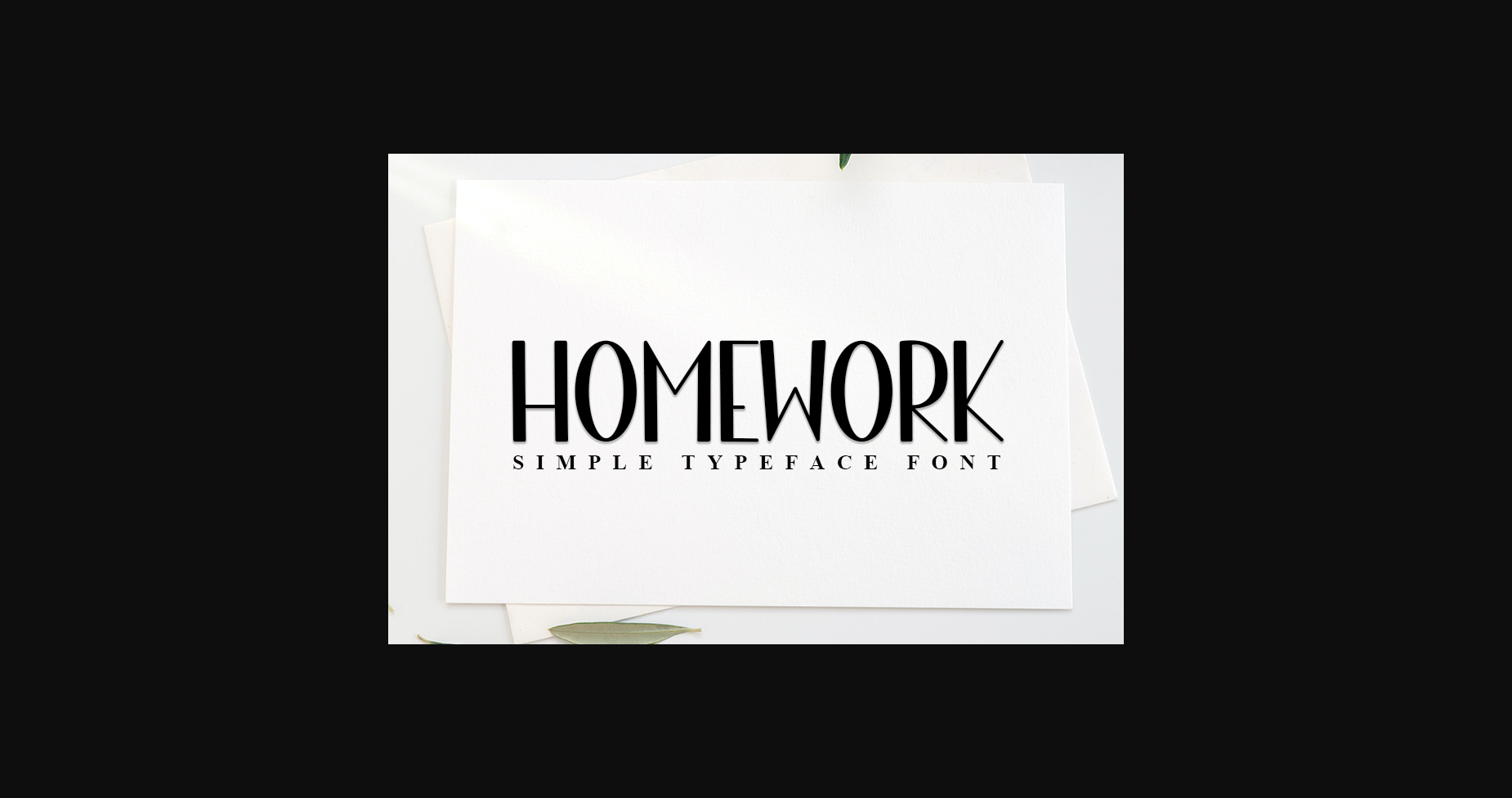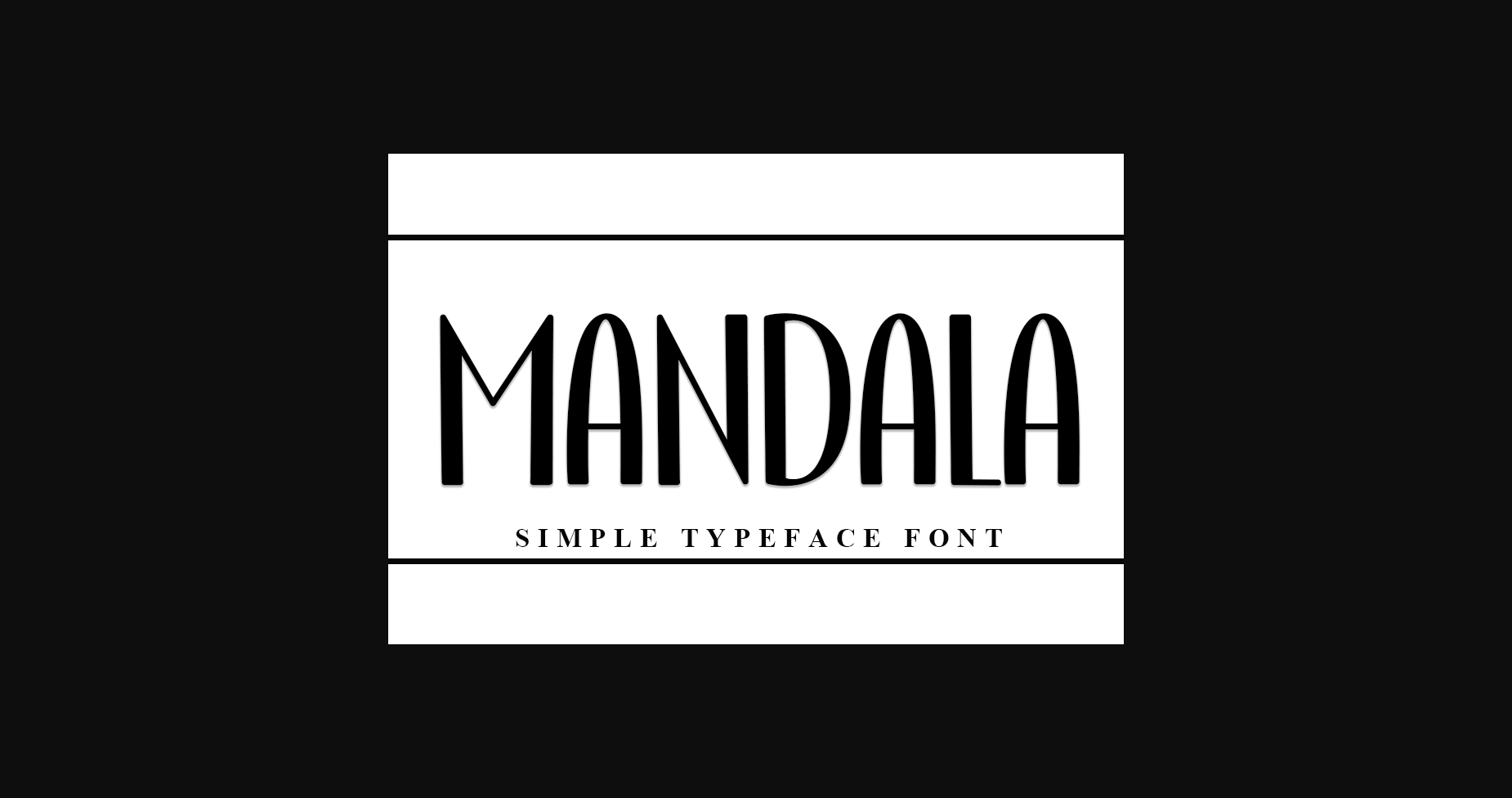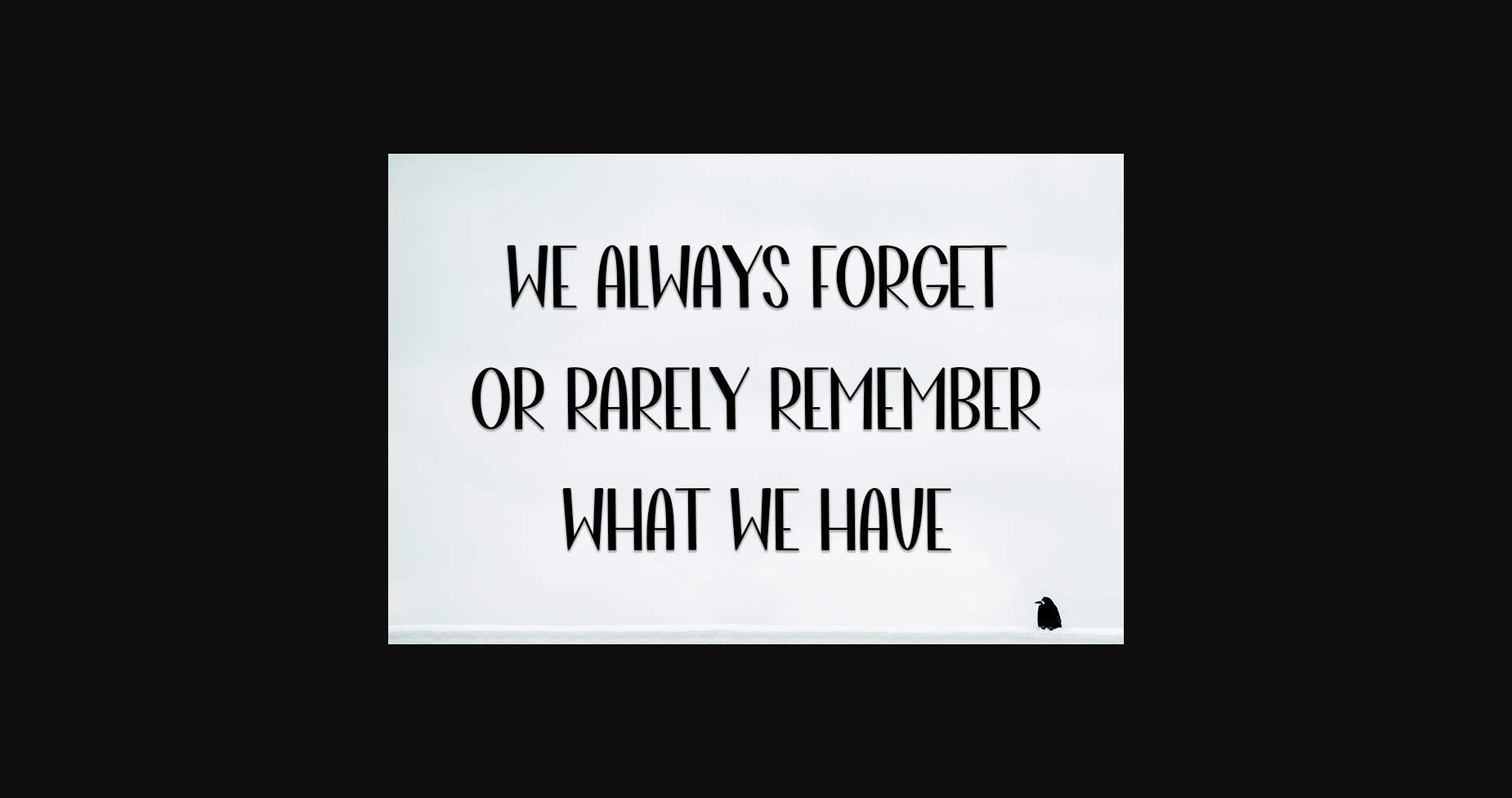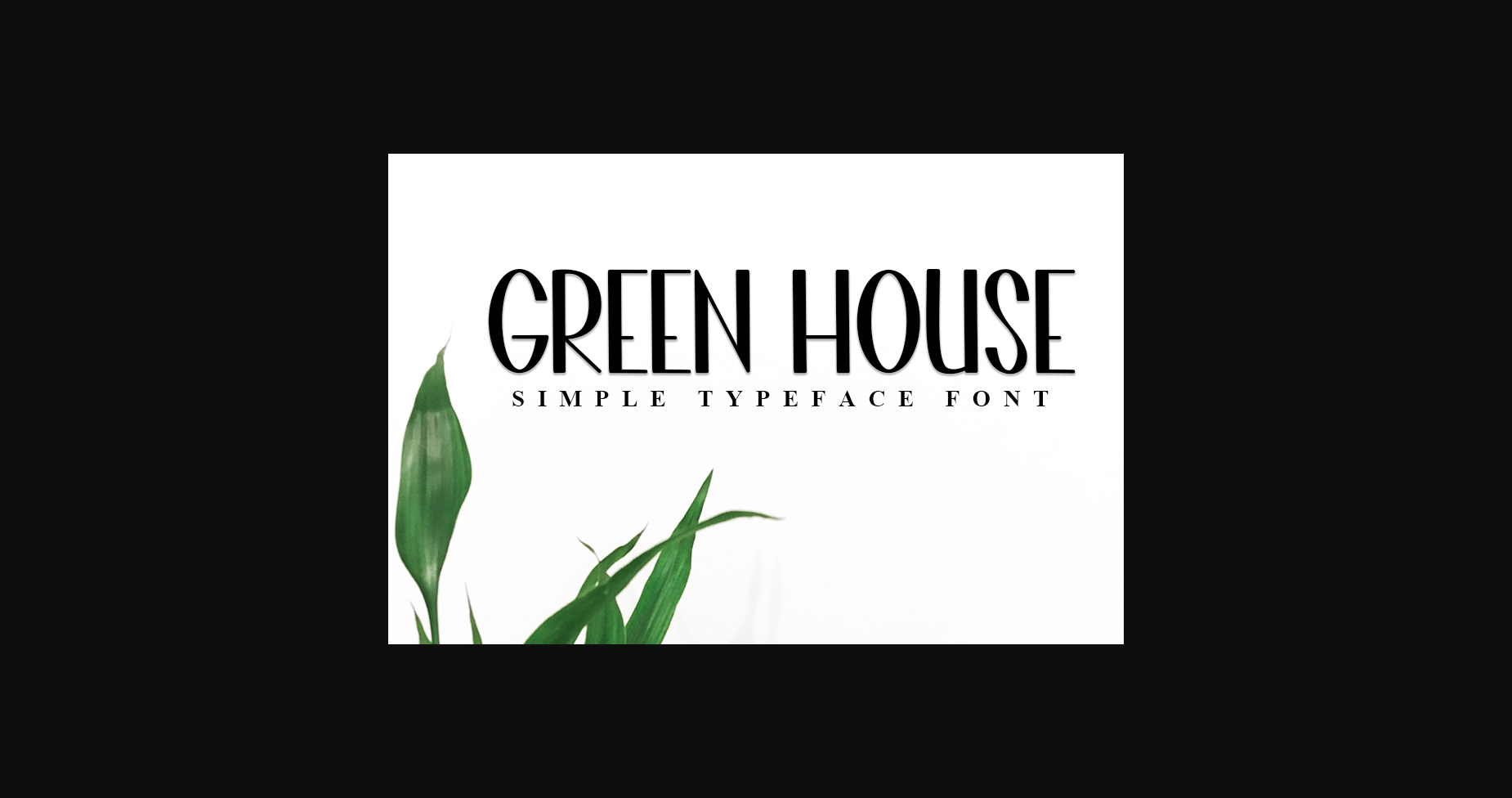
About Mandala Font
Mandala is a cool and modern Sans Serif font. Whether you’re using it for crafts, digital design, presentations, or creating greeting cards, this font has the potential to become your go-to font, whatever the occasion.